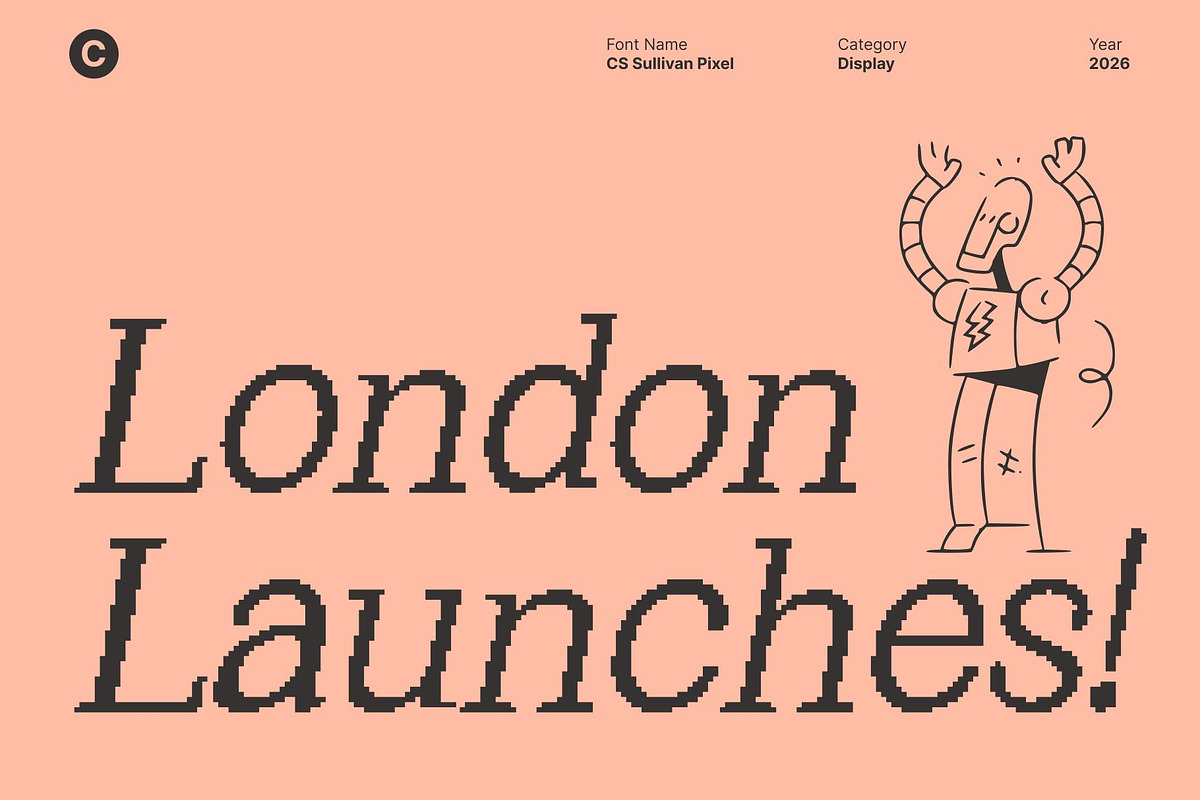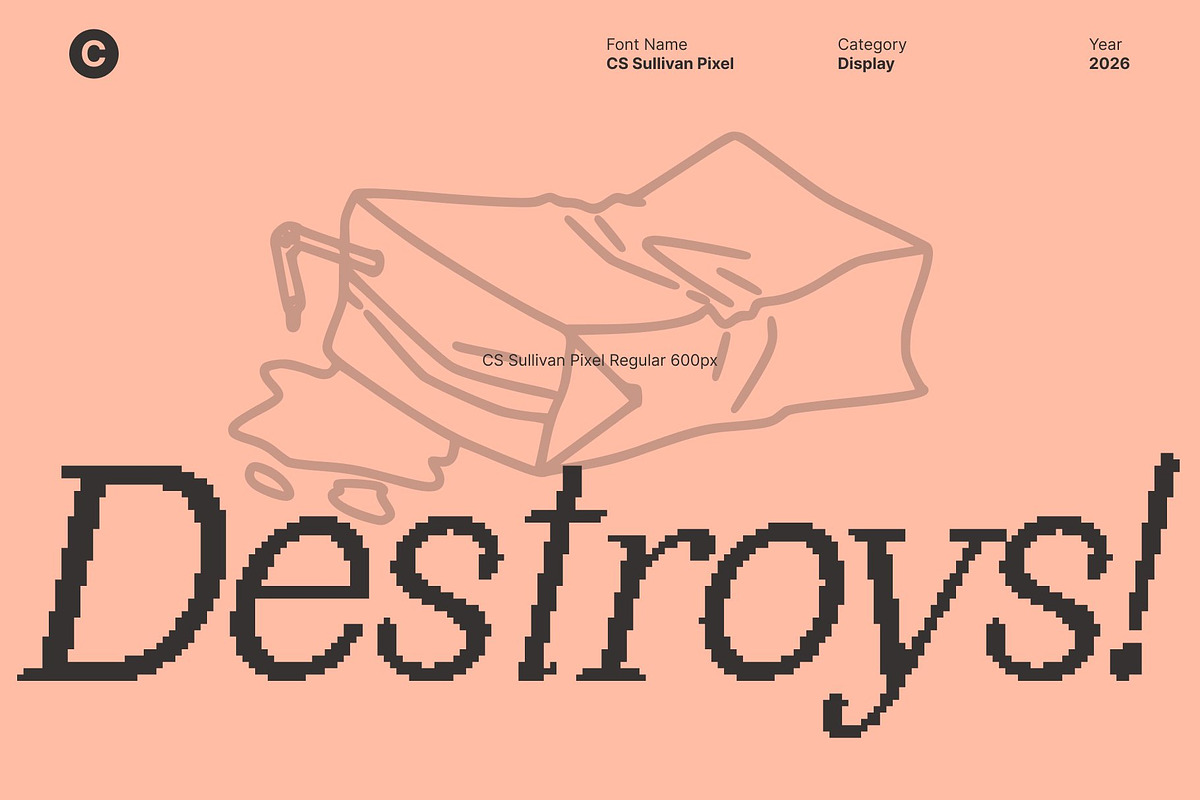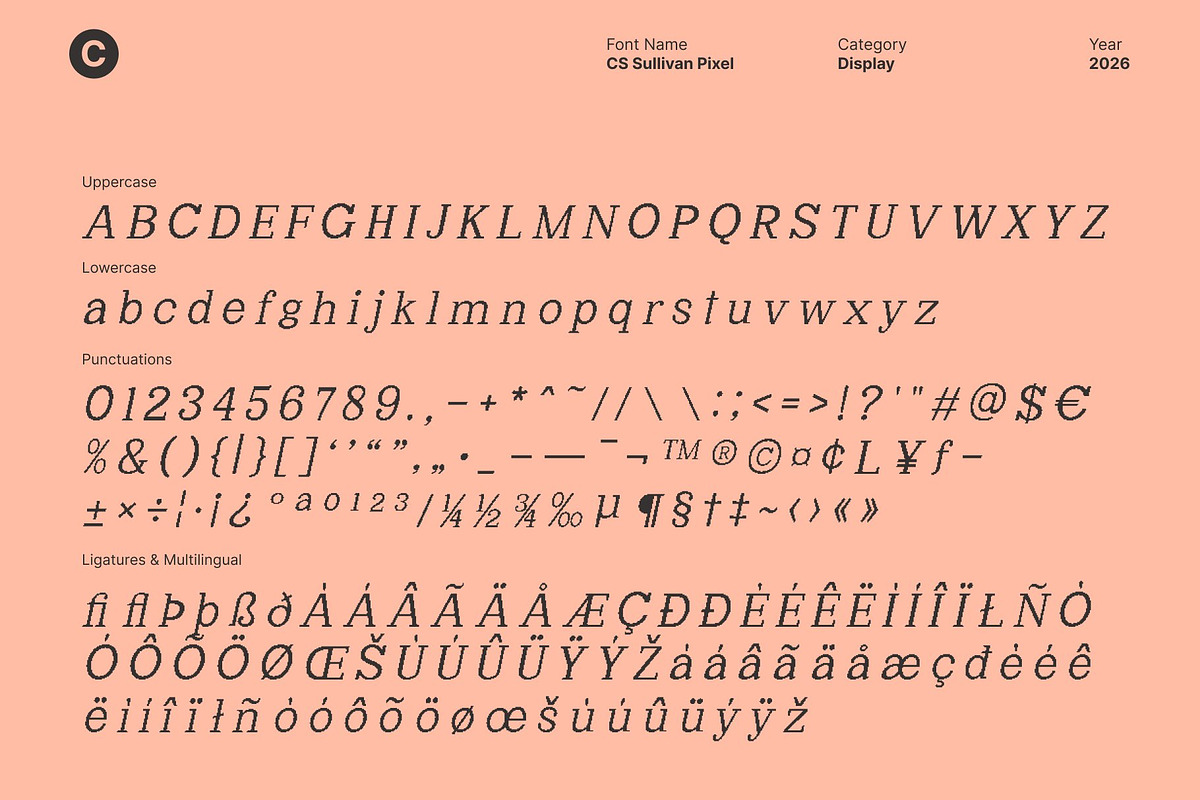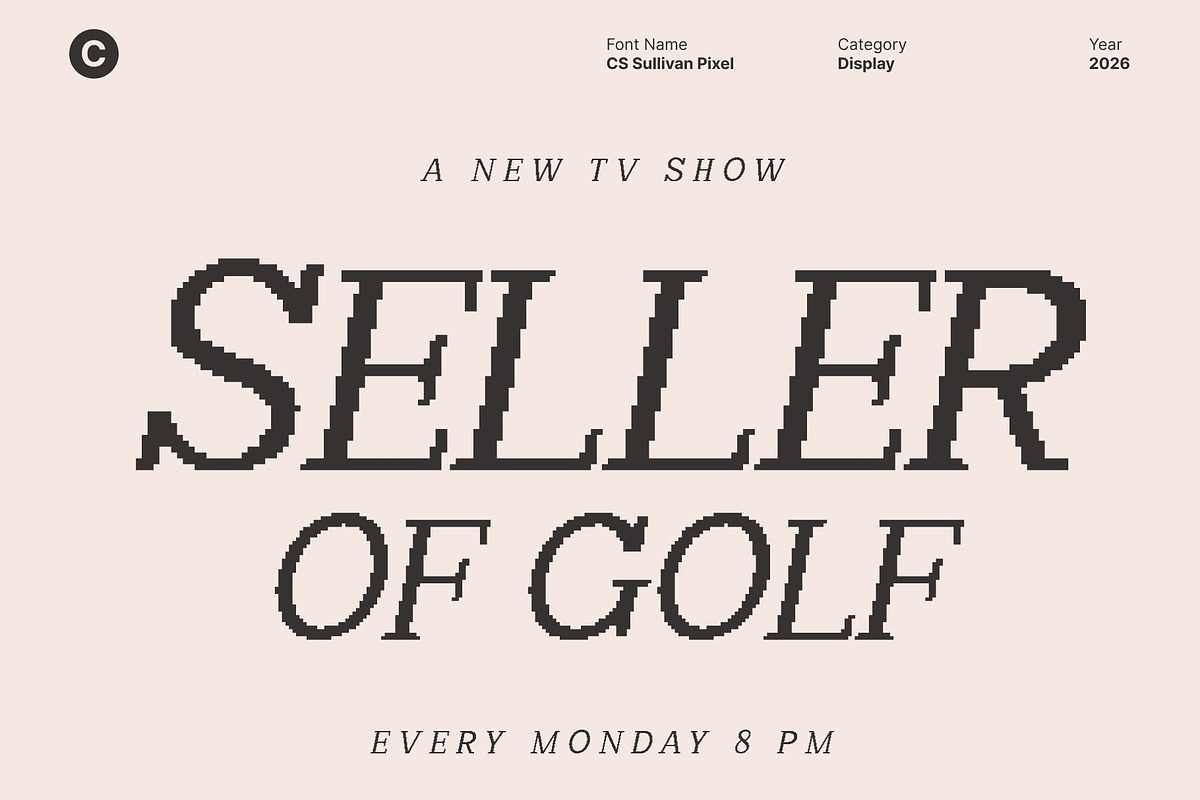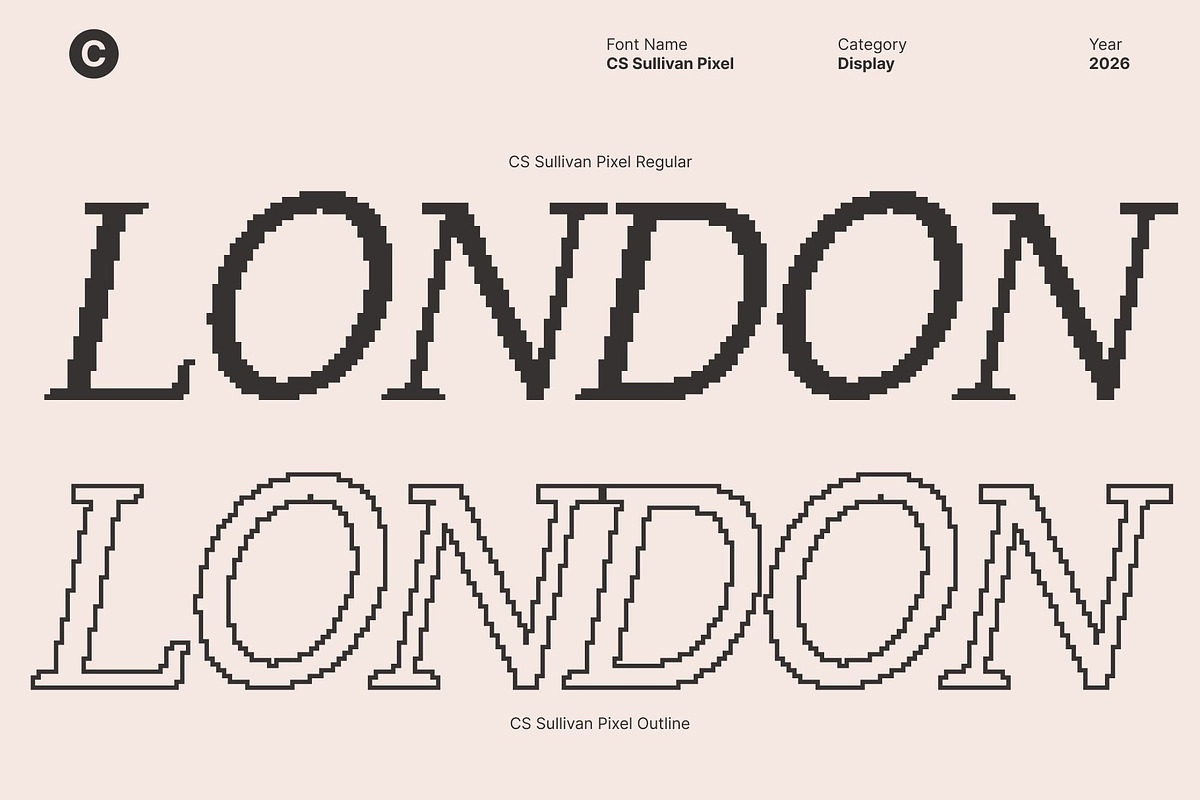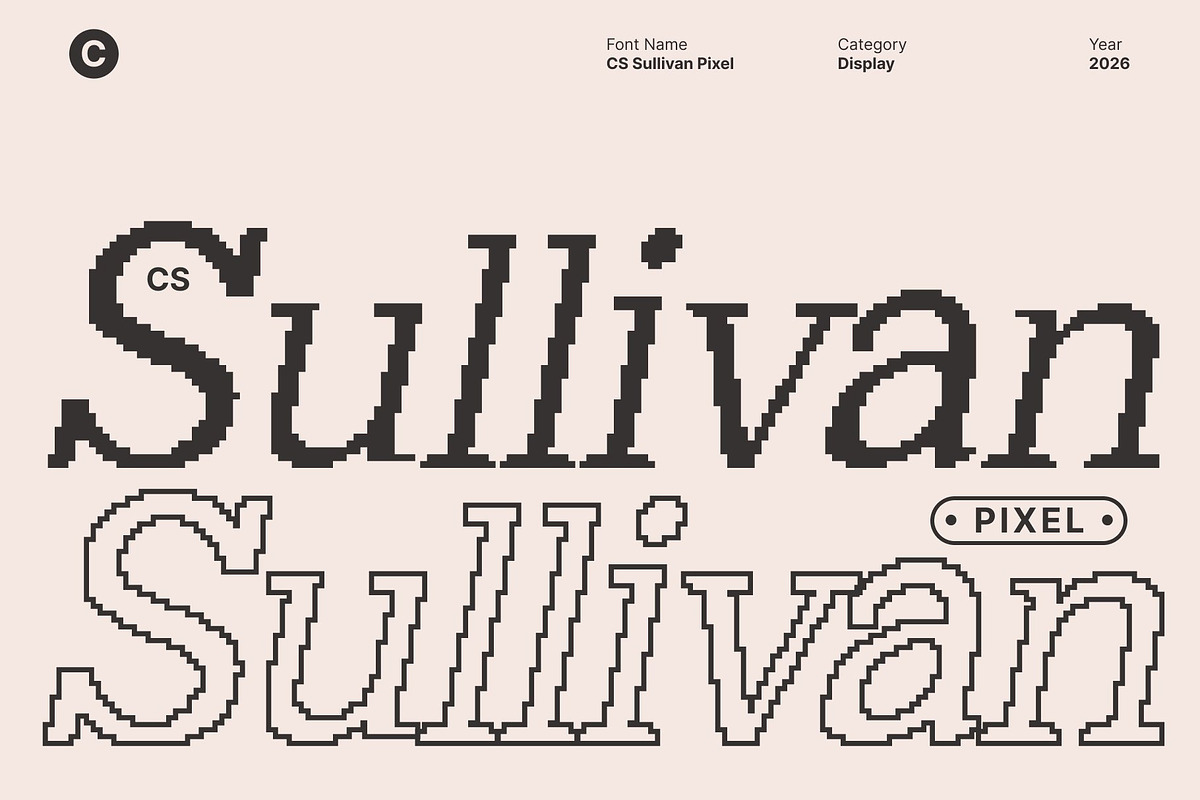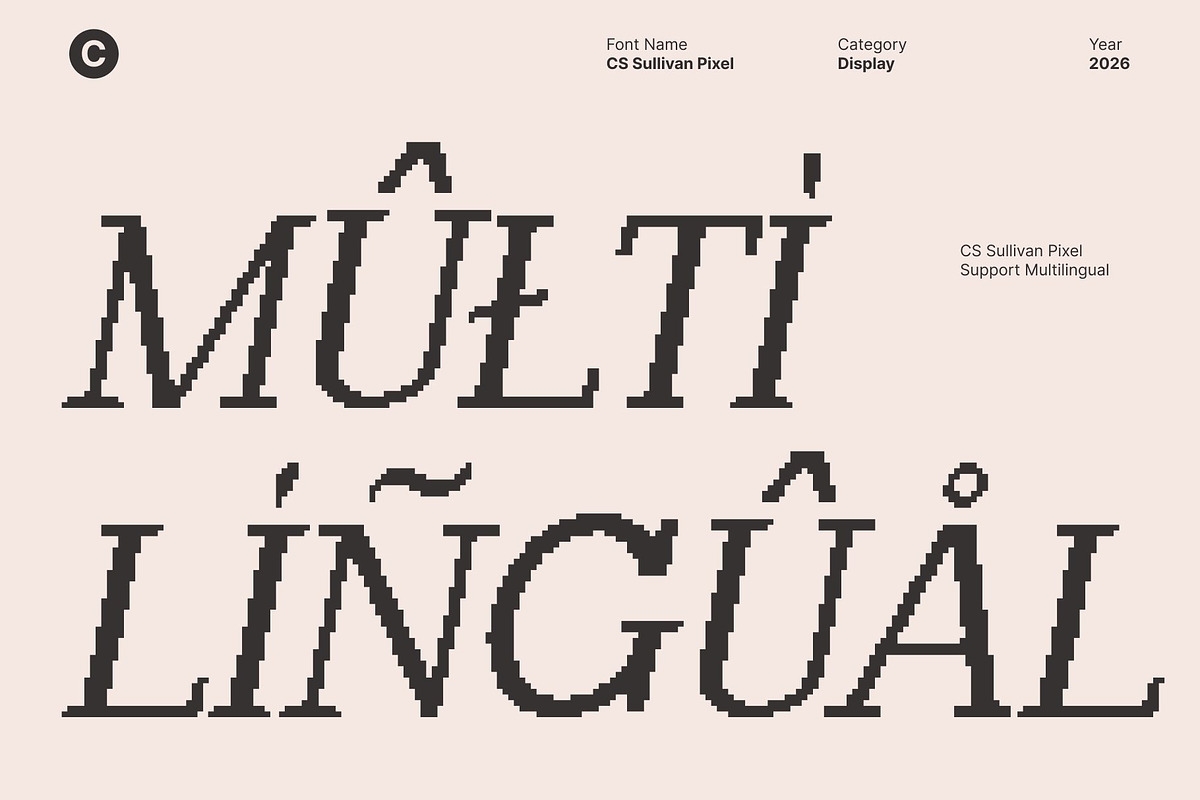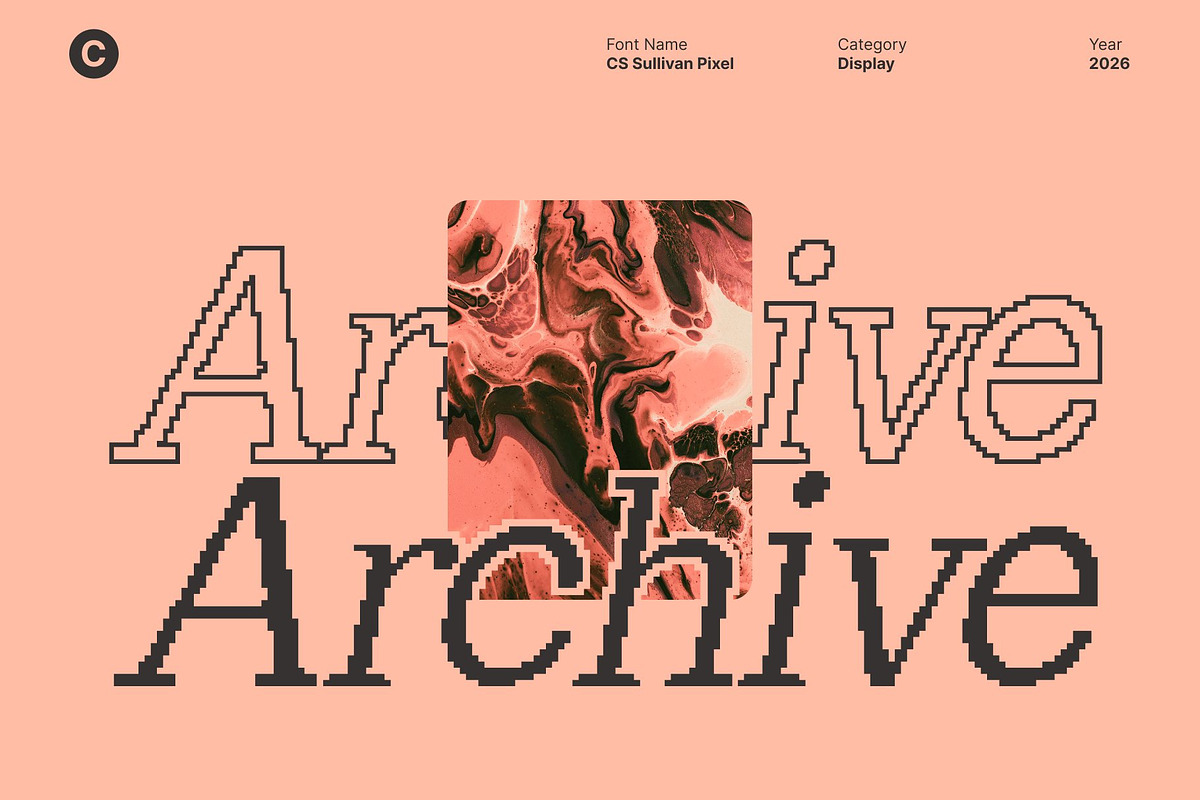
CS Sullivan Pixel
CS Sullivan Pixel – Modern Serif Font: Where Classic Form Meets Digital Precision
Professional Serif with Refined Pixel Balance This is a modern serif font that merges professional confidence with contemporary clarity. Its clean, slender serifs and refined structure are enhanced with subtle pixel-inspired detailing, creating a distinctive fusion of classic typography and digital sharpness. Every letterform is crafted with precision and balance, offering sophistication with a modern edge.
Timeless Elegance with a Crisp Digital Touch Rooted in timeless serif traditions, this font embraces modern sensibility through sleek proportions and controlled contrast. The gentle pixel accents introduce a refined technological nuance without compromising readability. The result is a harmonious rhythm that feels both authoritative and fresh across print and screen.
Perfect for Professional and Artistic Expression This font excels in branding, editorial layouts, luxury packaging, and high-end visual identities. Its confident structure lends polish to fashion magazines, advertising campaigns, and premium logos. Whether used for commanding headlines or elegant body text, it delivers clarity, distinction, and contemporary refinement.
Versatile for Modern Branding and Digital Design Balanced proportions and a subtle pixel aesthetic make this font adaptable to minimalist layouts and expressive compositions alike. It bridges the gap between tradition and innovation, making it ideal for designers who seek professionalism infused with modern digital character. This font stands as a refined statement where classic form meets confident precision.